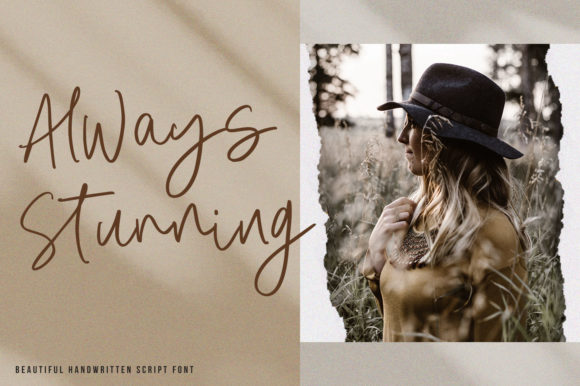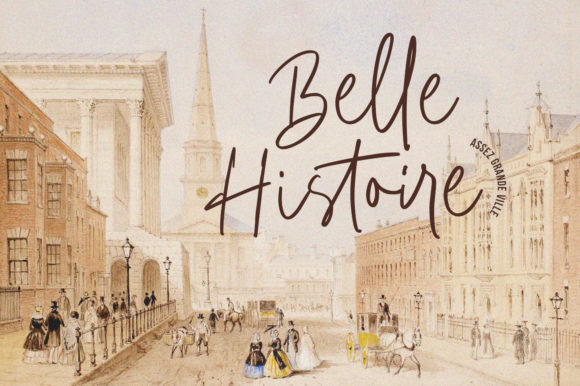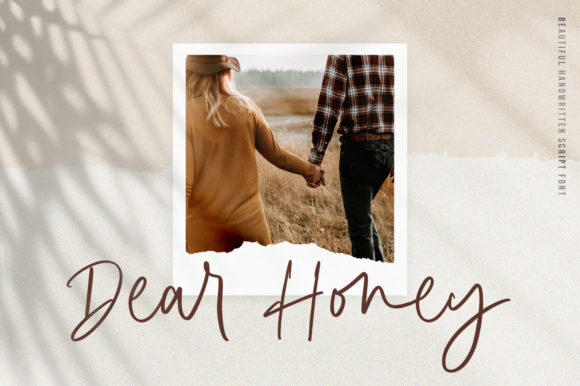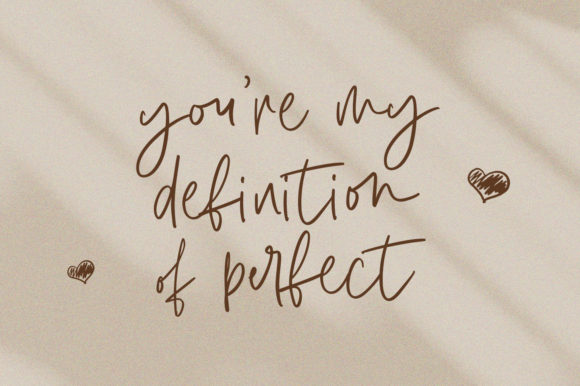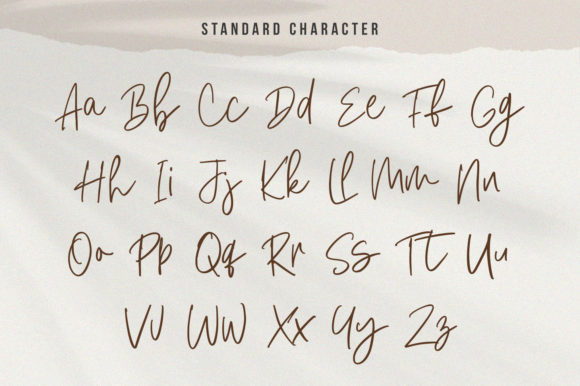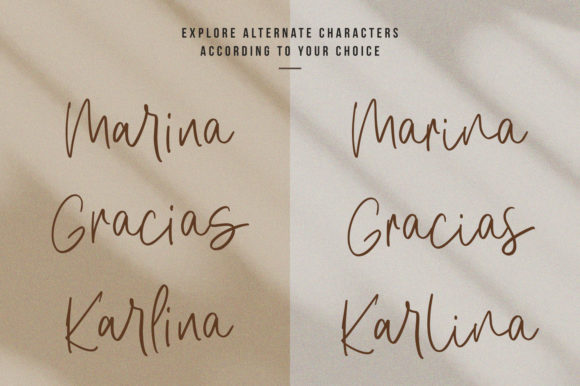
Discover the Amirah Brillone Font: A Bold and Playful Script for Your Creative Projects
Are you a designer or crafter looking for a font that adds a touch of personality to your work? Look no further than the Amirah Brillone Font! This bold and fun script is sure to capture the hearts of anyone who lays eyes on it. With its calligraphic look and playful feel, Amirah Brillone is the perfect addition to any creative project.
What is the Amirah Brillone Font?
The Amirah Brillone Font is a modern script font that is designed to bring a sense of fun and playfulness to your designs. Its bold and cursive style makes it perfect for headlines, titles, and any other text that needs to stand out. The font is highly legible, even at small sizes, making it versatile for use in a variety of applications.
Key Features of the Amirah Brillone Font
- Calligraphic Look: The Amirah Brillone Font has a beautiful, calligraphic look that adds a touch of elegance to any design.
- Bold and Fun: The font’s bold style makes it perfect for headlines and titles, while its fun and playful feel adds a touch of personality to any text.
- Highly Legible: The Amirah Brillone Font is designed to be highly legible, even at small sizes, making it versatile for use in a variety of applications.
- Modern Style: The font’s modern style makes it perfect for designers and crafters who want to add a touch of contemporary flair to their work.
Uses for the Amirah Brillone Font
The Amirah Brillone Font is perfect for a wide range of creative projects, including:
- Branding and Logo Design: The font’s bold and playful style makes it perfect for use in branding and logo design.
- Signage and Posters: The Amirah Brillone Font is highly legible and can be used to create eye-catching signage and posters.
- Digital Media: The font’s modern style makes it perfect for use in digital media, such as social media graphics and video titles.
- Crafting and Scrapbooking: The Amirah Brillone Font is a great addition to any crafter’s or scrapbooker’s toolkit, adding a touch of personality to handmade projects.
Why Choose the Amirah Brillone Font?
With so many fonts to choose from, why should you choose the Amirah Brillone Font? Here are just a few reasons:
- Unique Style: The Amirah Brillone Font has a unique and distinctive style that sets it apart from other fonts.
- High-Quality Design: The font is designed to be high-quality and highly legible, making it perfect for use in a variety of applications.
| Author | Kotak Kuning Studio |
If you’re looking for a font that adds a touch of personality and playfulness to your designs, look no further than the Amirah Brillone Font. With its bold and calligraphic look, highly legible style, and modern feel, this font is perfect for a wide range of creative projects. So why wait? Fall in love with the Amirah Brillone Font and add it to your toolkit today!